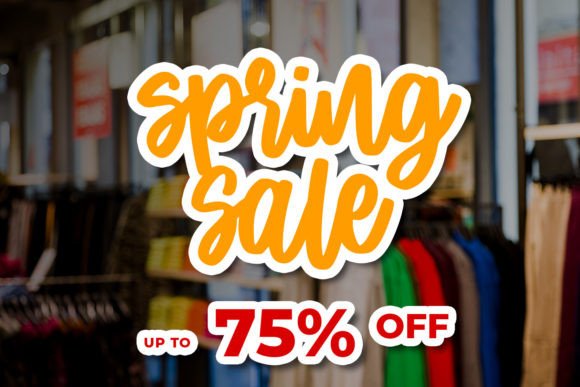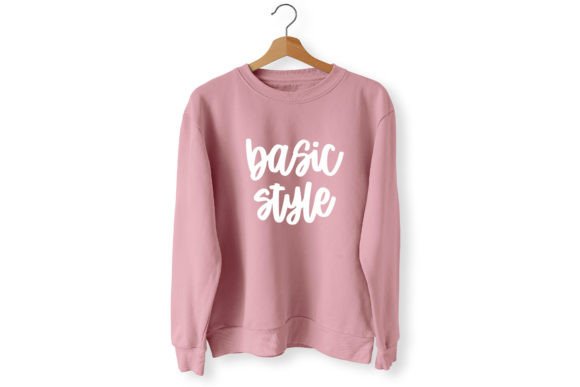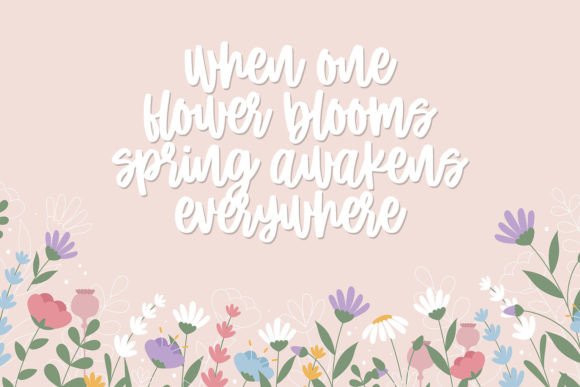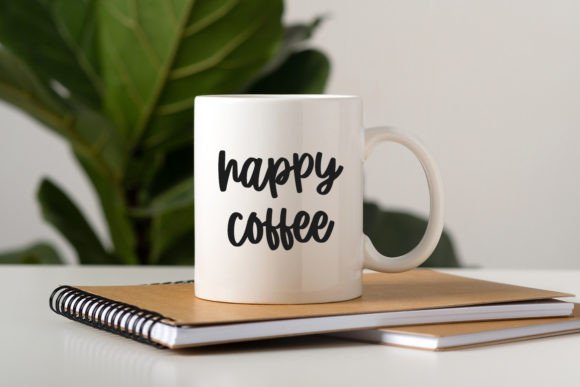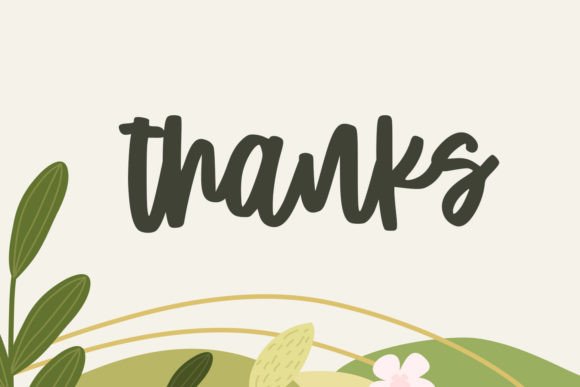
Introducing Glowing Font: Elevate Your Designs with a Modern Handwriting Style
Are you tired of using the same old fonts for your designs? Look no further than Glowing Font, a natural and modern handwriting font that’s perfect for adding a personal touch to your creations. In this article, we’ll explore the features and benefits of Glowing Font, and show you how it can elevate your branding, quotes, logos, and more.
What is Glowing Font?
Glowing Font is a beautifully crafted handwriting font that’s both elegant and modern. Its unique, flowing script is perfect for creating eye-catching designs that stand out from the crowd. Whether you’re a designer, crafter, or DIY enthusiast, Glowing Font is a versatile and stylish choice for a wide range of projects.
What Can I Use Glowing Font For?
The possibilities are endless with Glowing Font! This amazing font is suitable for:
- Branding: Create a lasting impression with custom logos, business cards, and letterheads that showcase your brand’s personality.
- Quotes: Add a touch of inspiration to your quote designs, making them perfect for social media, posters, or wall art.
- Logos: Design unique and memorable logos for your business, product, or service.
- T-shirt Designs: Create eye-catching apparel with custom designs that make a statement.
- Tote Bag Designs: Add a personal touch to your tote bags with beautiful, hand-drawn designs.
- Cards: Create one-of-a-kind greeting cards, invitations, and stationery that showcase your creativity.
- Banners: Design stunning banners for events, sales, or promotions that grab attention.
- Social Media: Elevate your social media presence with custom graphics, quotes, and posts that stand out.
Why Choose Glowing Font?
So, what sets Glowing Font apart from other fonts? Here are just a few reasons why designers and crafters love Glowing Font:
- Unique and Modern: Glowing Font’s modern handwriting style is both fresh and timeless, making it perfect for contemporary designs.
- Elegant and Sophisticated: The flowing script and natural feel of Glowing Font add an air of sophistication to any design.
- Versatile: Use Glowing Font for a wide range of projects, from branding and logos to quotes and social media graphics.
- Easy to Read: Despite its elegant style, Glowing Font is surprisingly easy to read, making it perfect for body text and quotes.
Tips for Using Glowing Font
To get the most out of Glowing Font, here are a few tips to keep in mind:
- Experiment with Colors: Glowing Font looks stunning in a range of colors, from bold and bright to soft and pastel.
- Mix and Match: Combine Glowing Font with other fonts or graphics to create unique and eye-catching designs.
- Play with Sizes: Use Glowing Font in a range of sizes to create visual interest and hierarchy in your designs.
Glowing Font is a game-changing font that’s perfect for designers, crafters, and DIY enthusiasts. With its modern handwriting style, elegant feel, and versatility, Glowing Font is sure to elevate your designs and help you stand out from the crowd. Whether you’re creating branding materials, quotes, logos, or social media graphics, Glowing Font is the perfect choice. So why wait? Try Glowing Font today and see the difference for yourself!